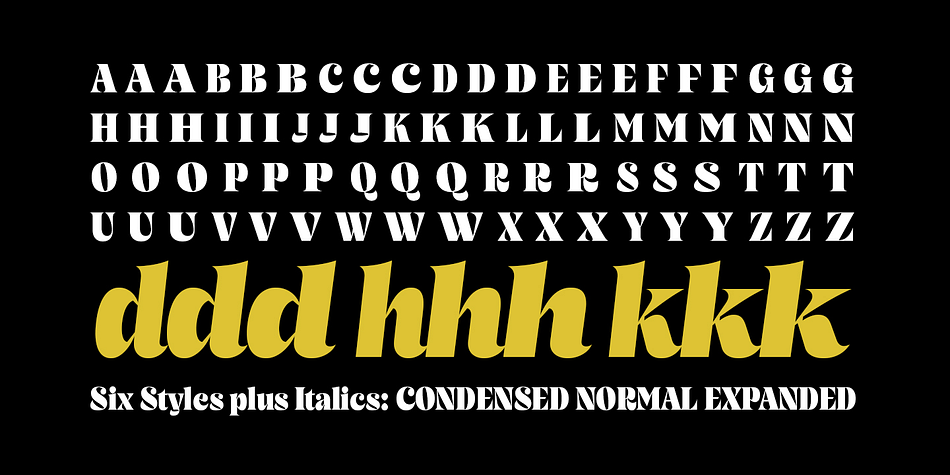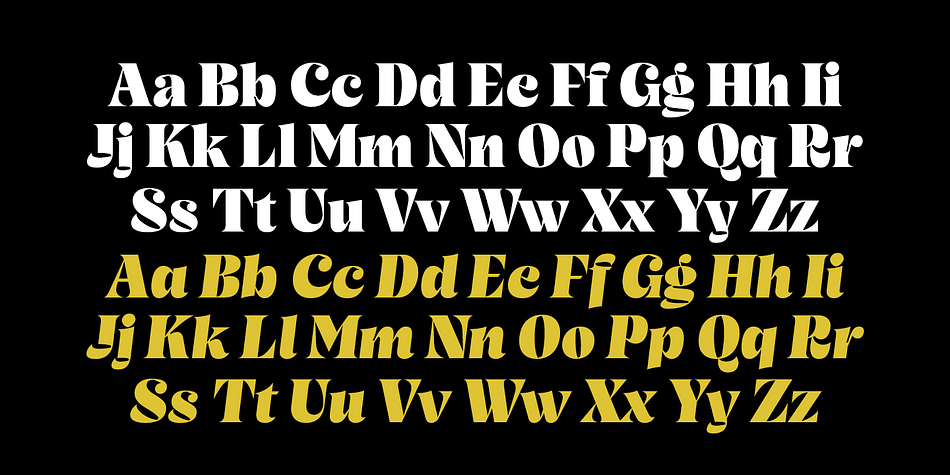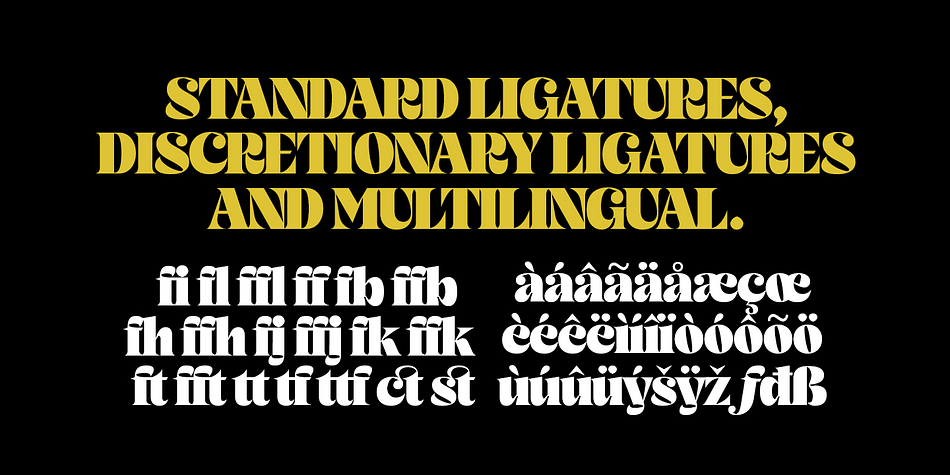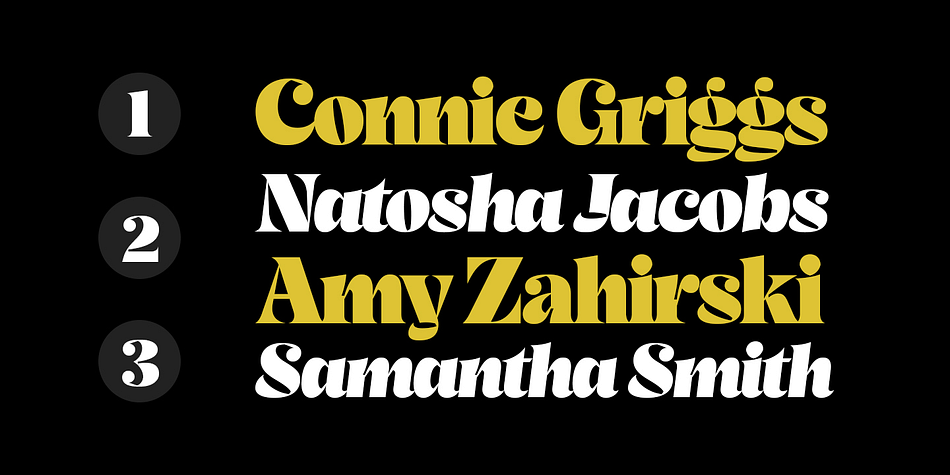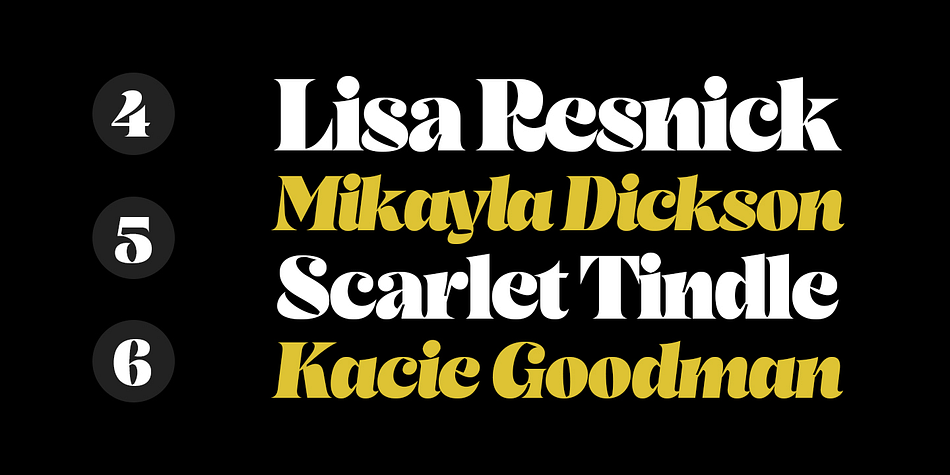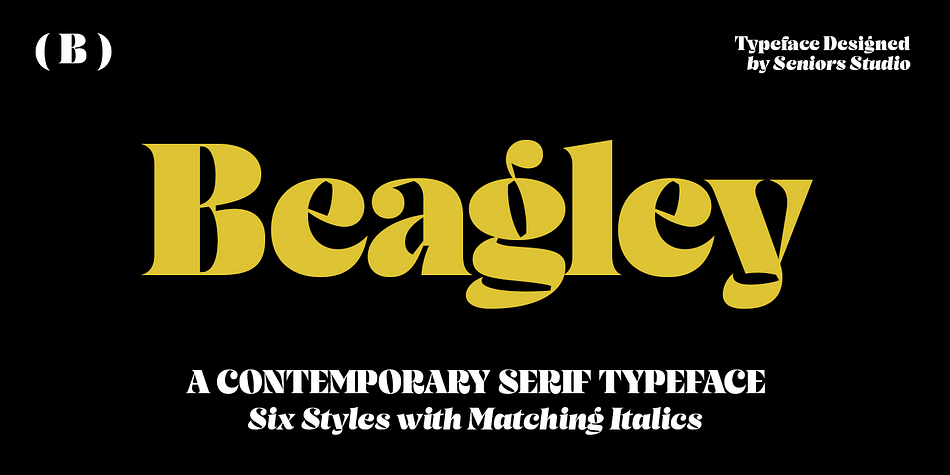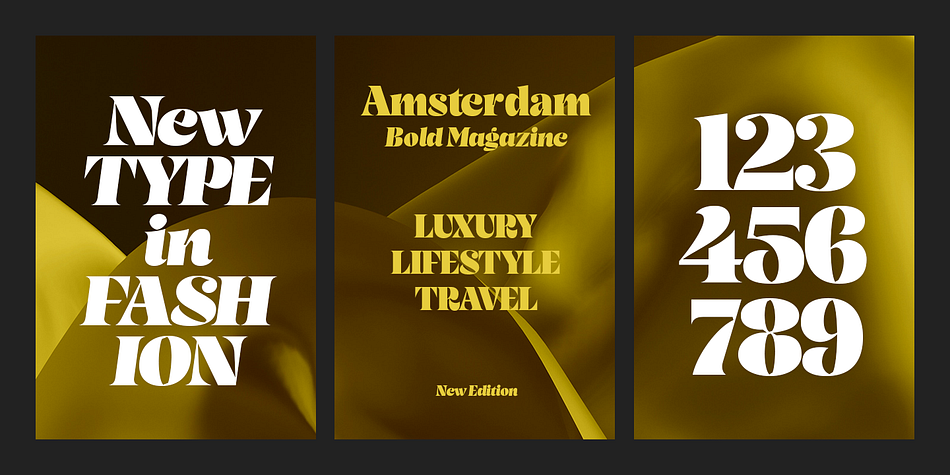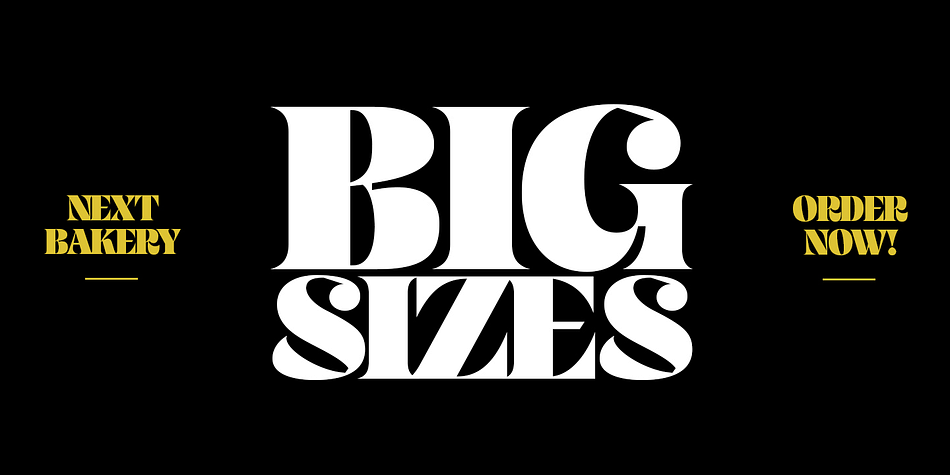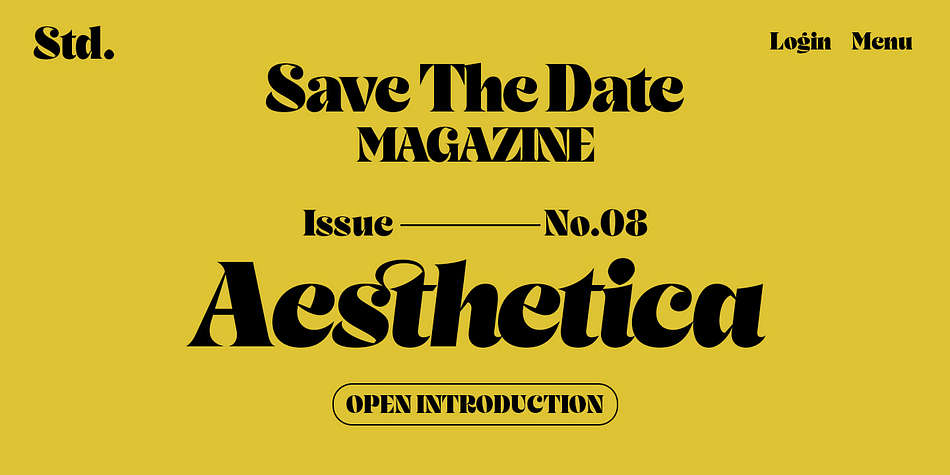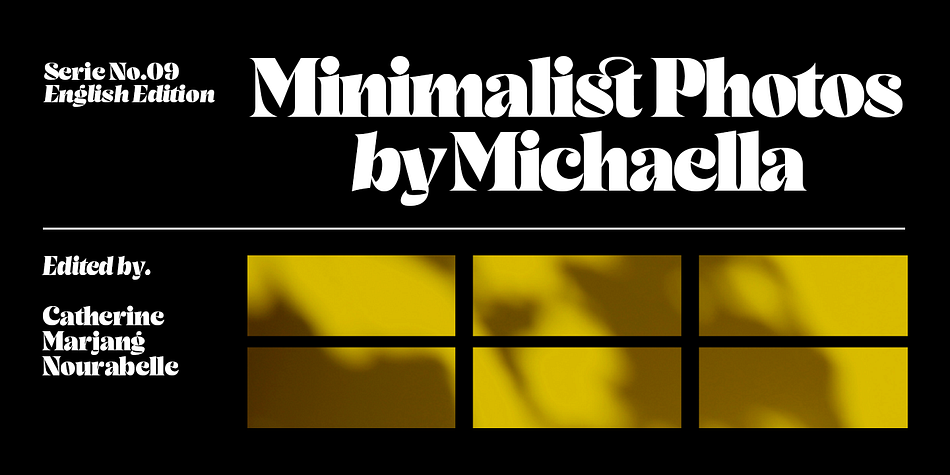
Beagley
Beagley is a display serif and retro font family. This typeface has six styles and was published by Seniors Studio.
Beagley Display is a contemporary serif typeface, special designed for printing and advertising. With deliberately tight kerning. Beagley provides a warm and friendly atmosphere. Suitable for logotypes, brands, magazines and editorial.  The font contains 6 styles from condensed, normal and expanded, plus matching italics. 250 glyphs include ligatures, discretionary ligatures and a wide range of flexibility for Latin language support for every typographical needs.